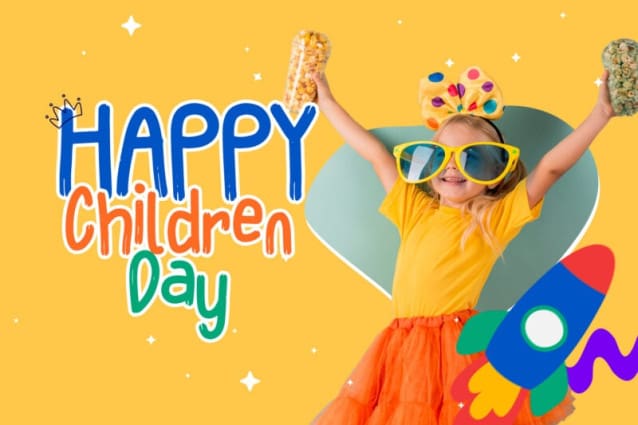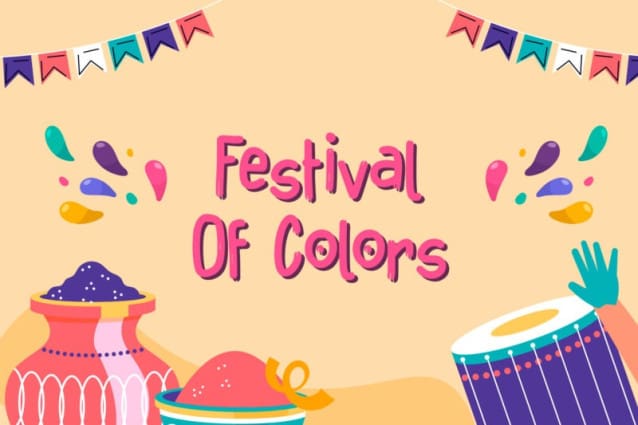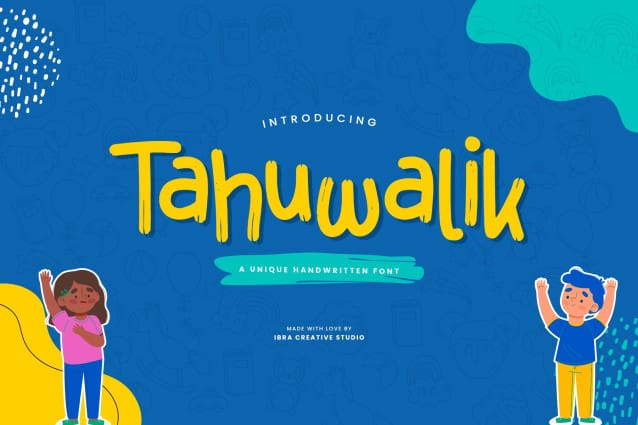
Tahuwalik Display Font
Tahuwalik Display Font, a truly distinctive handwritten font, stands out as a captivating blend of elegance and individuality. Each letter in Tahuwalik Display is a work of art, weaving a story of creativity and originality with every stroke. The font’s unique design transcends conventional boundaries, embracing a harmonious chaos that sets it apart.
Tahuwalik exudes a sense of handcrafted authenticity, with characters that seem to dance across the page, creating a visual symphony of expression. Its unconventional yet balanced aesthetic captures the essence of creative spontaneity, making it a perfect choice for projects that seek to convey a sense of bold individualism and artistic flair. Tahuwalik transforms words into a personalized visual experience, leaving a lasting impression that goes beyond the ordinary.